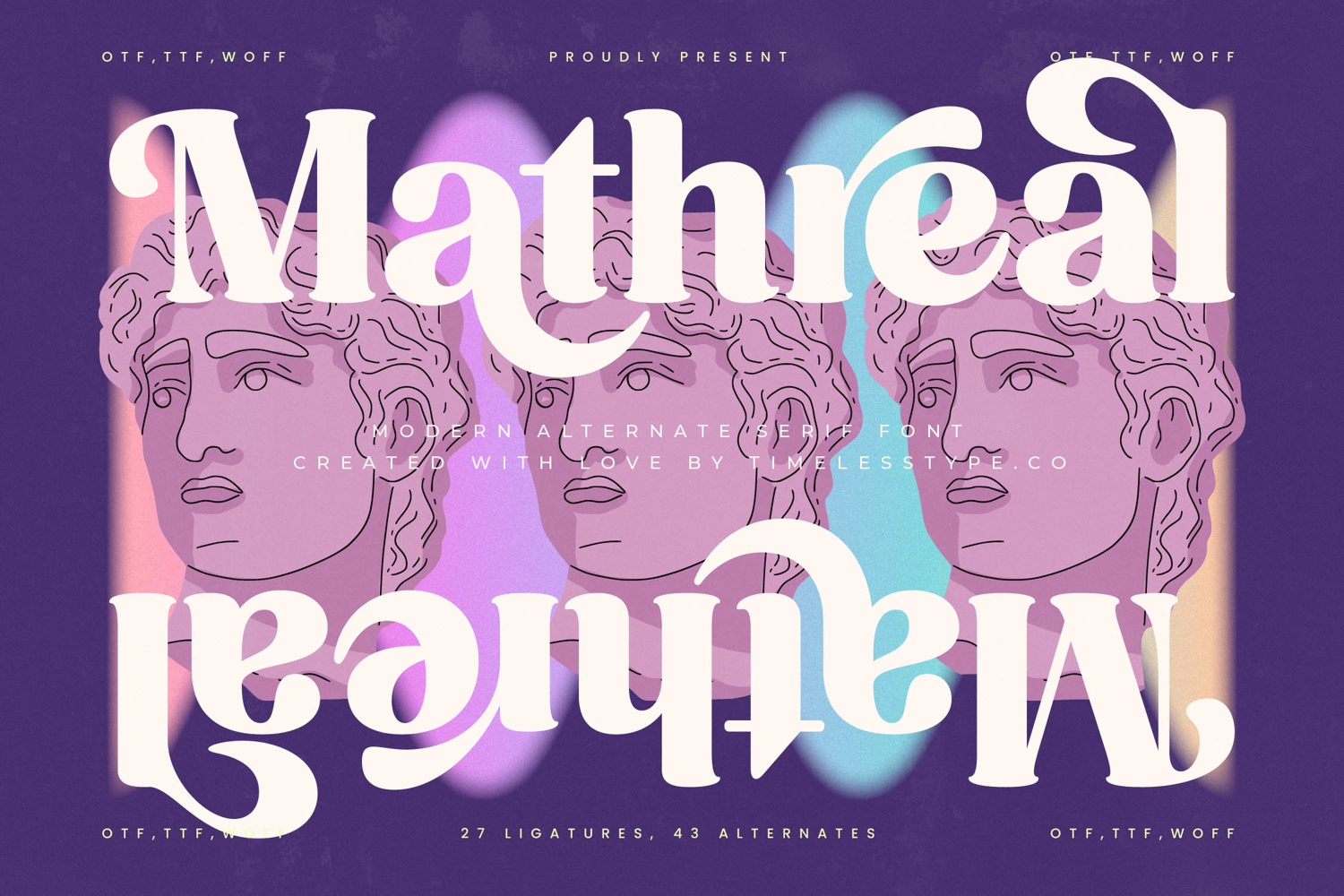
Mathreal - Modern Alternate Serif Font
The Mathreal Typeface is a modern alternate serif font with an artistic, decorative style and a strong classic-modern character. Featuring 27 ligatures and 43 stylistic alternates, this font provides wide flexibility to create typography that is unique, dynamic, and exclusively refined. Its bold letterforms paired with curved swash ornaments evoke an elegant retro feel with a contemporary touch, making it perfect for designs that emphasize strong visual aesthetics.
This typeface is highly effective in editorial design, especially for magazine covers, artistic headlines, and creative book covers. The available ligatures and alternates allow each composition to appear more varied, expressive, and dramatic.
In branding and packaging, Mathreal is an excellent choice for fashion, perfumes, cosmetics, wines, and premium lifestyle brands. Its bold, elegant aesthetic creates an exclusive impression, making visual identities more iconic and memorable.
For entertainment and promotional design, this font works beautifully on movie posters, music albums, event campaigns, and art festival branding. Its artistic and decorative character enhances visual storytelling with a theatrical flair.
In the realm of digital design, Mathreal performs optimally across social media content, website branding, digital advertising, and motion graphics. Its typography remains legible despite its decorative details, and with multilingual support, it is well-suited for global projects.
In short, Mathreal Typeface is a decorative serif display font designed to embody classic beauty, visual strength, and artistic flexibility. Perfect for editorial, branding, packaging, entertainment, advertising, and digital campaigns, this font elevates typography into a timeless, stylish, and expressive design element.